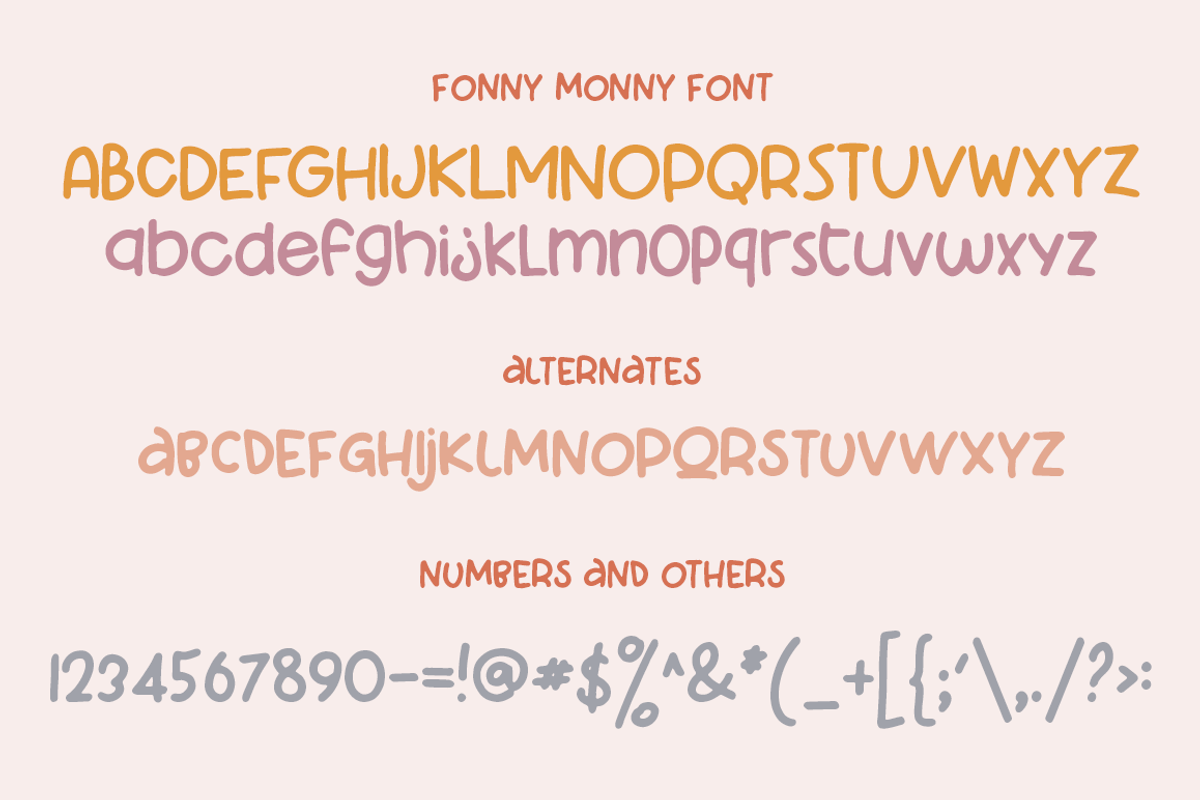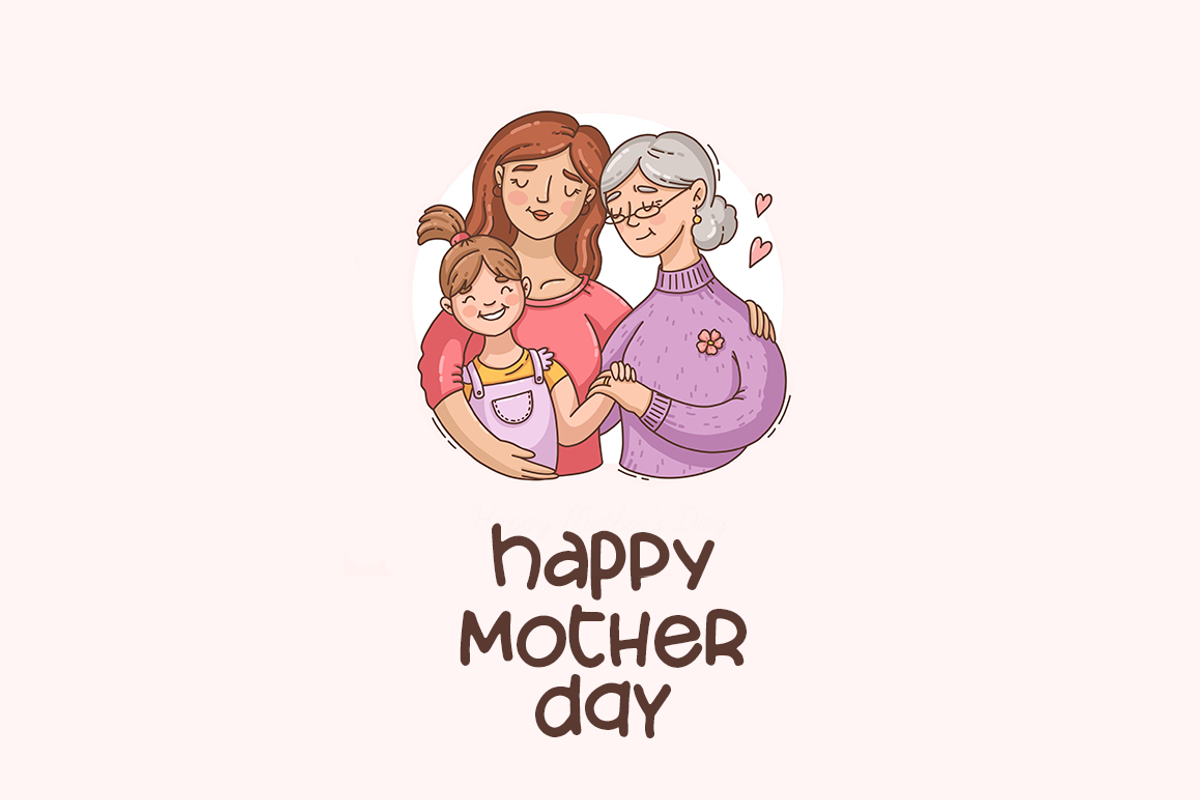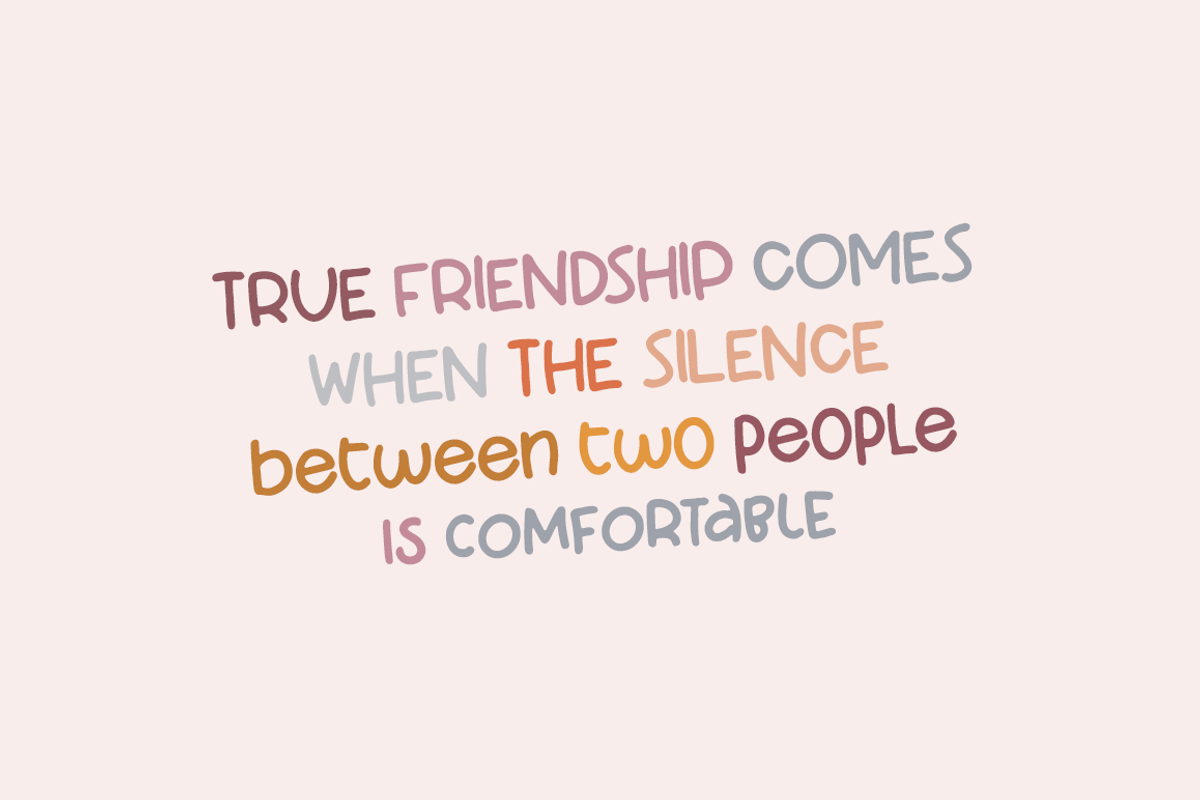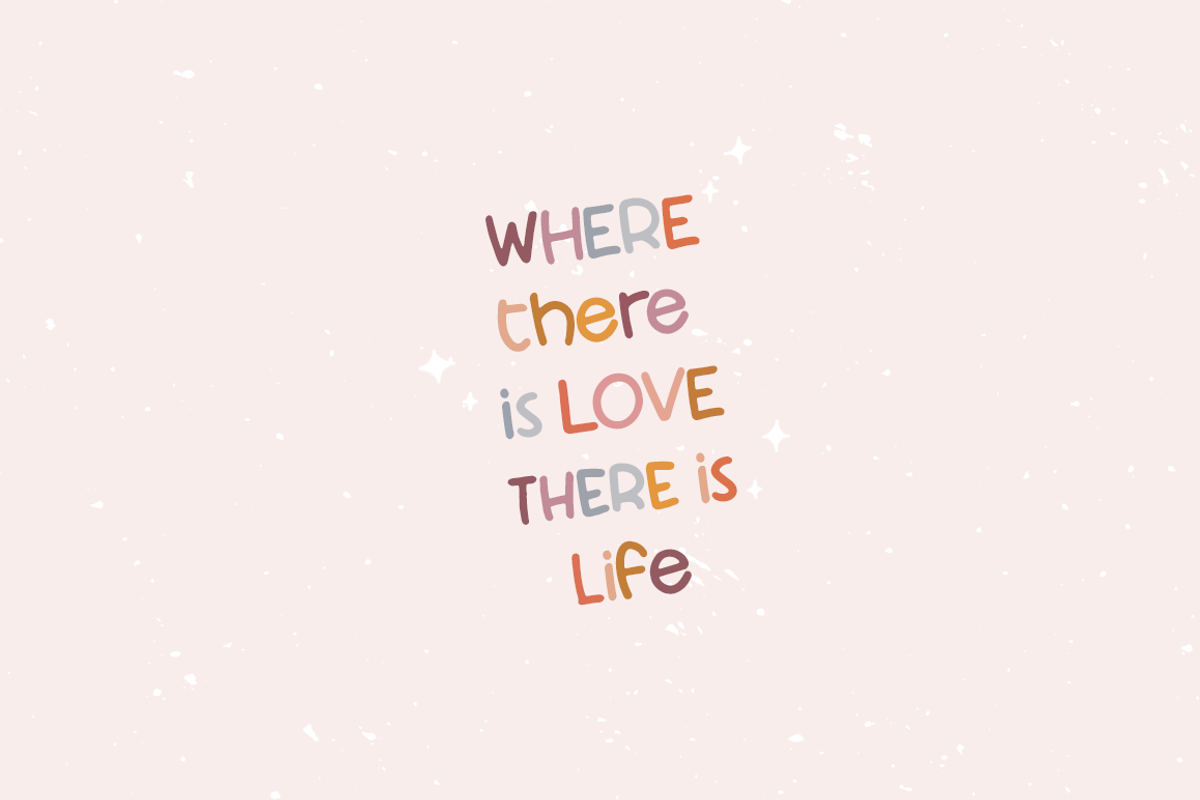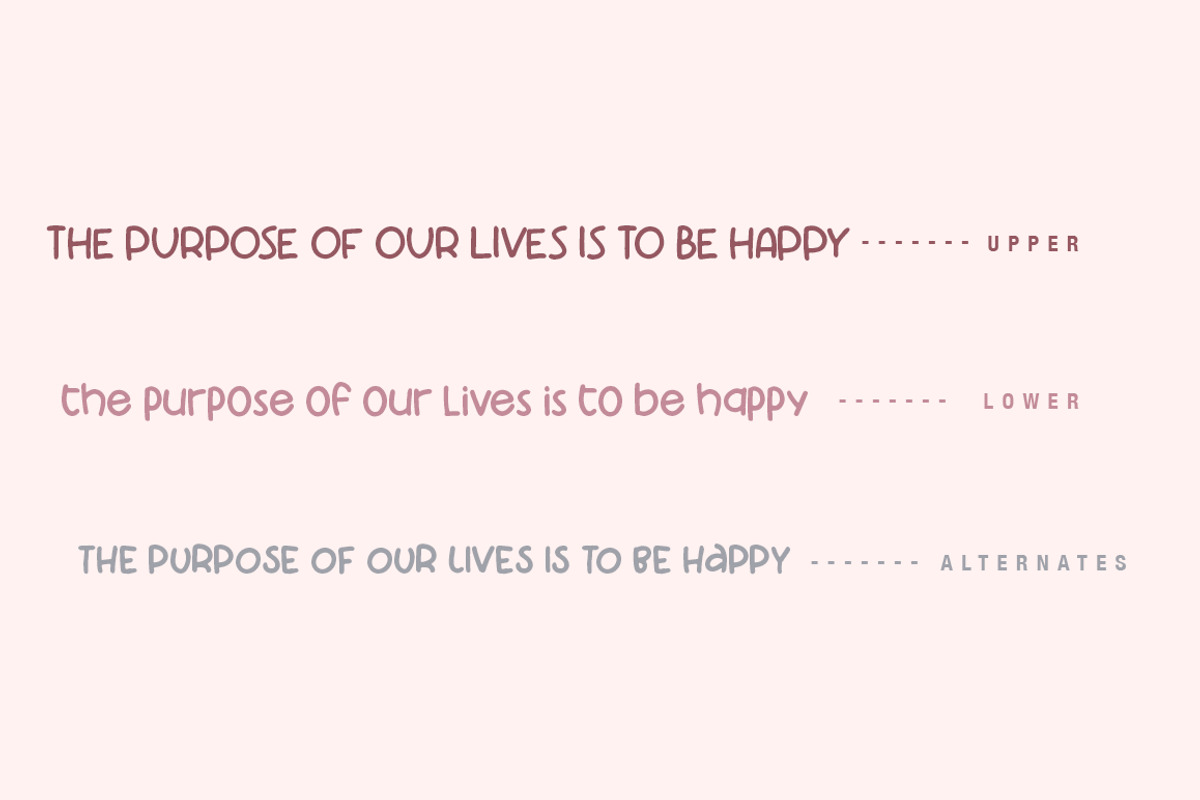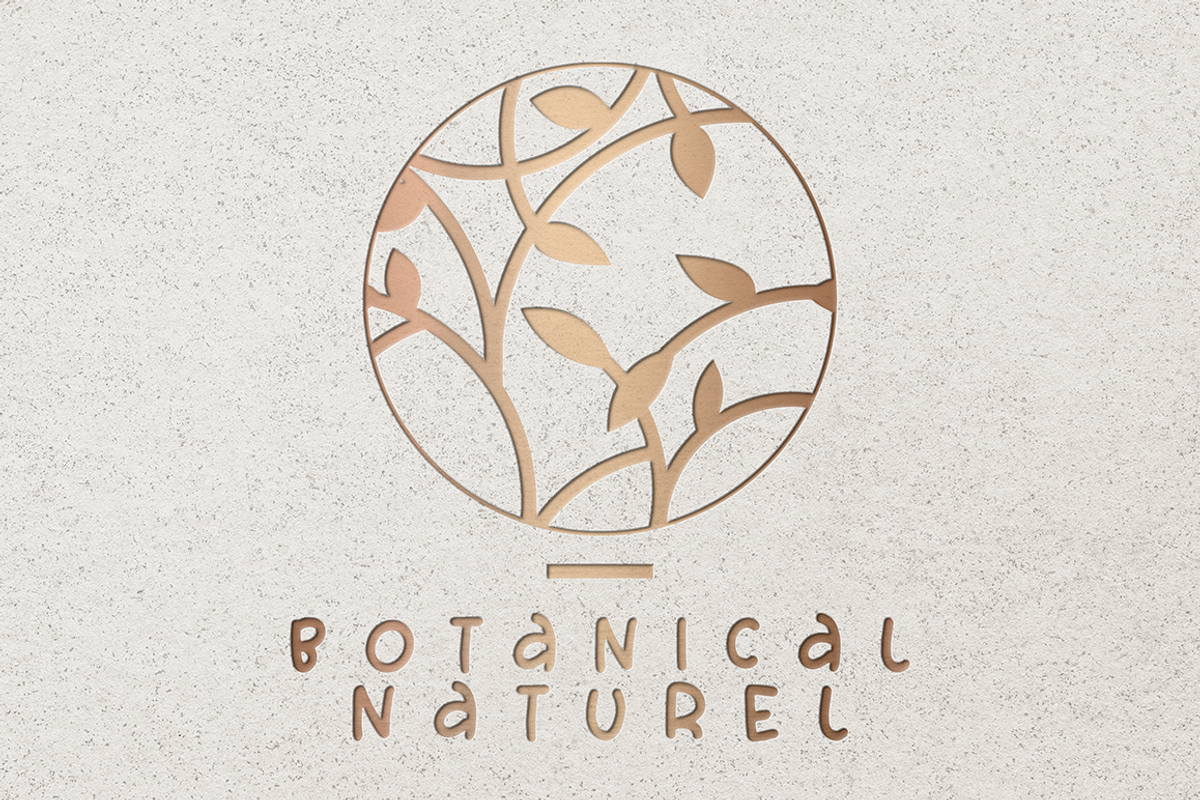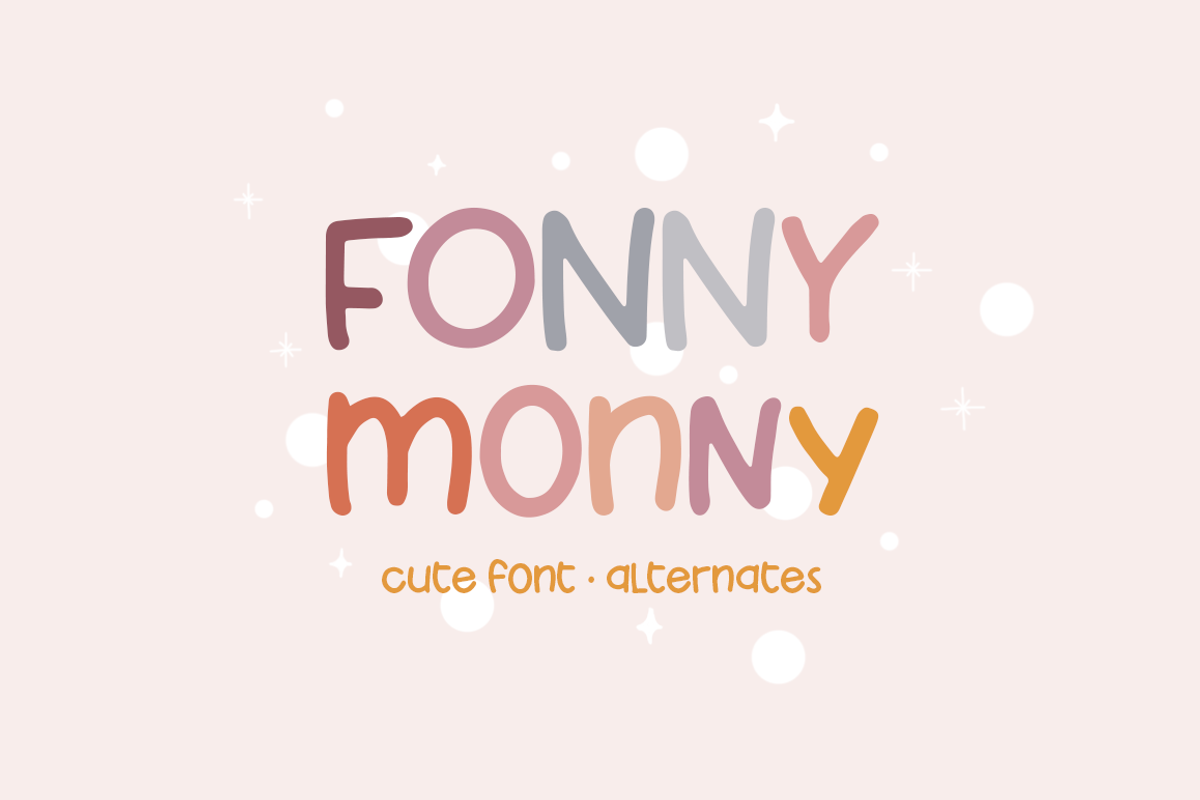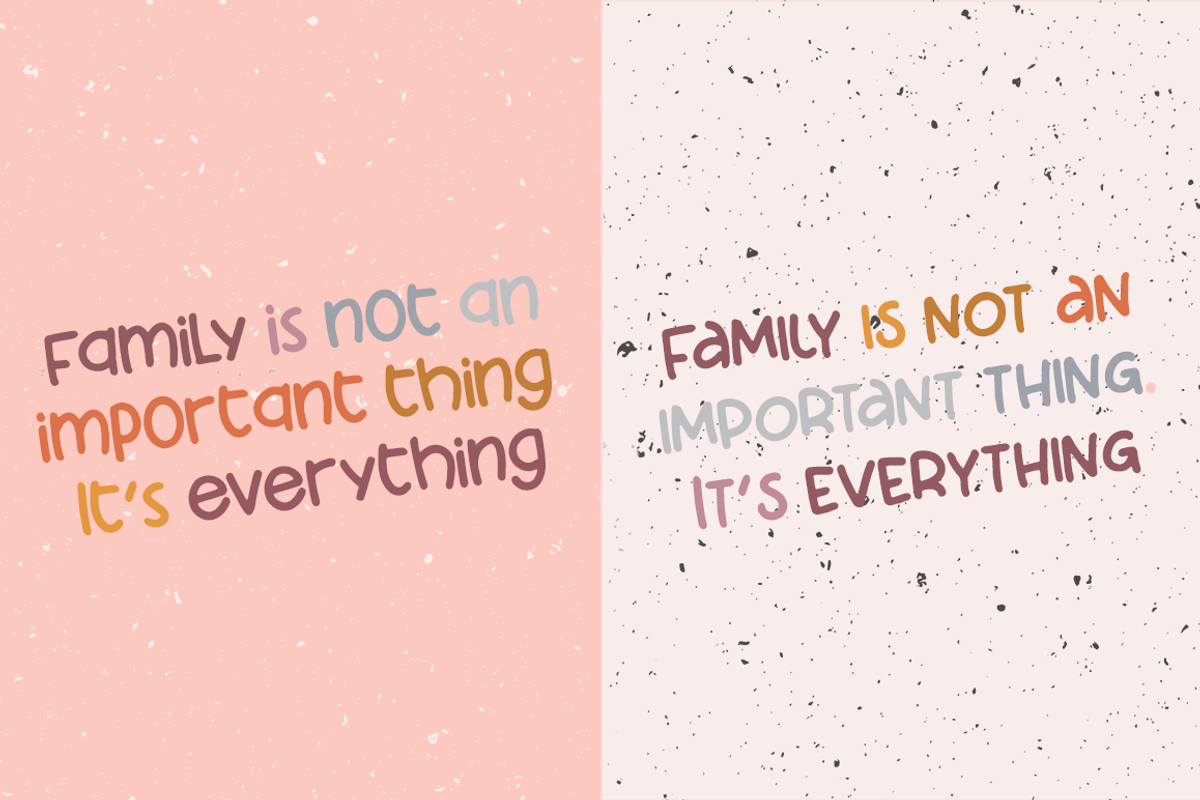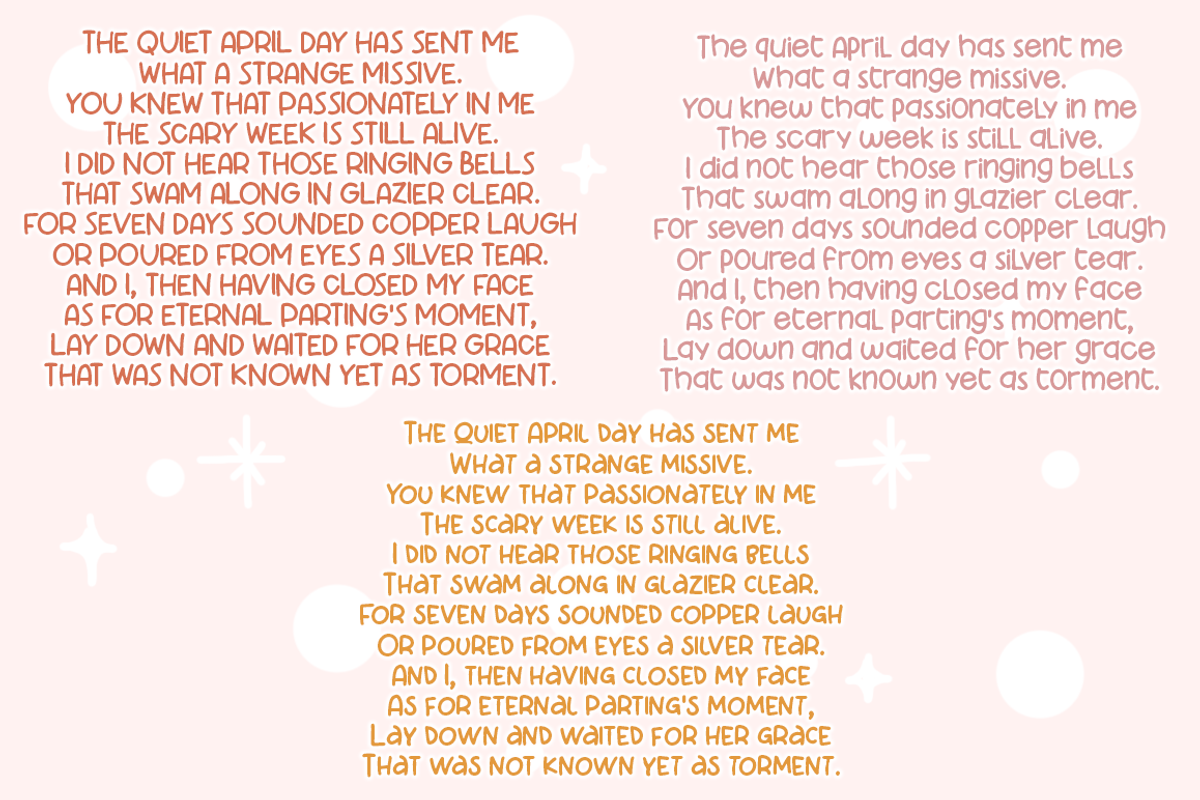
Foony Monny Handwritten cutefont
Fonny Monny - a new fresh handmade calligraphy font.
- Very suitable for greeting cards, branding materials, business cards, quotes, posters, and more!This font are perfect for wedding postcard. Or you can create perfect and unique design of your logo, blog, stationery, marketing, magazines and more :)
ALTERNATES support.